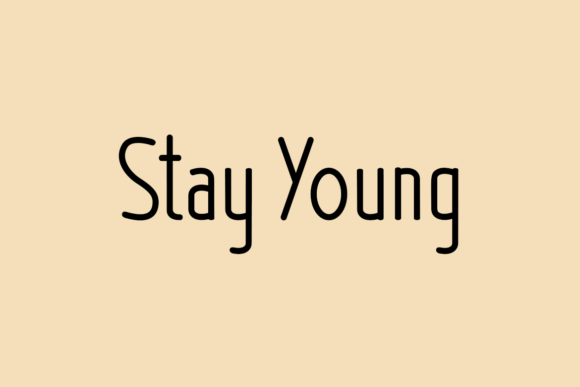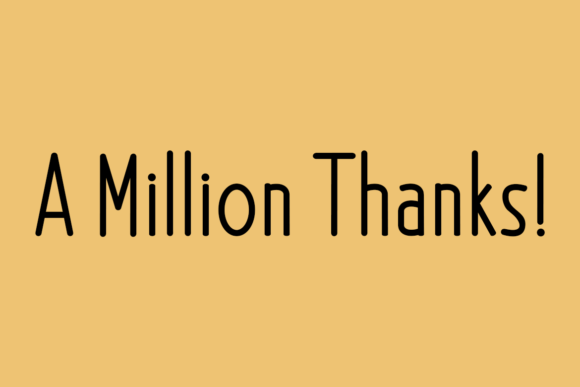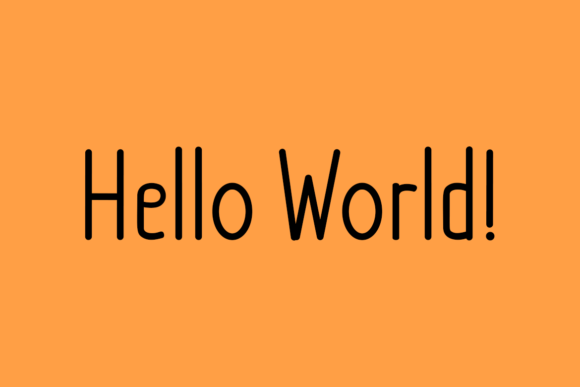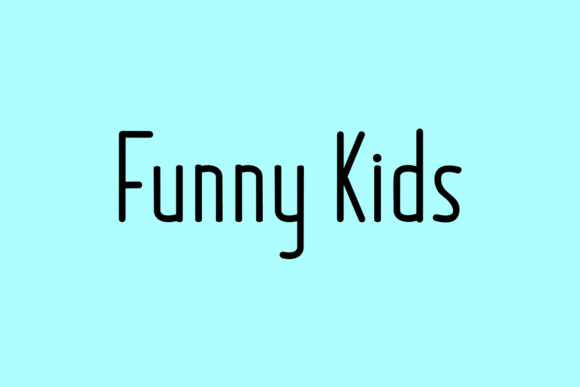
Introduction to Hollas Font
Have you ever stared at a blank page, waiting for inspiration to strike, only to have it hit you in the most unexpected way? That’s exactly what happened to me when I stumbled upon the elegant Hollas Font. Its clean lines and classic charm immediately caught my attention, and I knew I had to learn more about this beautiful design resource.
As designers, we’re always on the lookout for high-quality fonts that can elevate our creative projects and give them that extra oomph. And let me tell you, Hollas Font delivers. With its impeccable form and balanced design, it’s the perfect addition to any design project. Whether you’re working on a free download or a commercial project, Hollas Font is sure to impress with its transparent background and versatility.
Key Features of Hollas Font
- High-quality design for creative projects with a transparent background, perfect for overlaying on images or videos.
- Designed with a modern aesthetic, Hollas Font is ideal for use in logos, branding materials, and other creative projects.
- Unique characteristics include a custom-designed letter ‘A’ and a distinctive ligature, adding a touch of personality to your design.
Honest Review: Hollas Font
As a designer, I’m always on the lookout for high-quality design resources that can elevate my creative projects. Recently, I had the chance to try out the Hollas Font, and I must say it’s a gem.
- High-quality typography: The Hollas Font boasts a beautiful, modern design that’s perfect for a variety of creative projects.
- Transparent background: This feature allows for seamless integration with any background, making it a valuable design resource.
While the Hollas Font is an excellent choice for many designers, it does have a few limitations. Specifically, the font’s versatility is somewhat limited by its modern aesthetic, which may not be suitable for all design projects.
In conclusion, the Hollas Font is a high-quality design resource that’s perfect for creative projects that require a modern, stylish touch. While it may not be suitable for every design project, it’s a valuable addition to any designer’s toolkit. With its transparent background and free download, it’s definitely worth checking out.
Hollas Font: A High-Quality Design Resource
Tips for Getting the Most Out of Hollas Font
Experiment with layering Hollas Font over different backgrounds and images to create unique and eye-catching designs. Use the transparent background feature to add depth and interest to your projects. With a little creativity, Hollas Font can be used in a wide range of applications.
Hollas Font is perfect for a variety of design projects, including social media graphics, presentations, logos, and business documents. Its clean and modern design makes it ideal for creative projects and design resources.